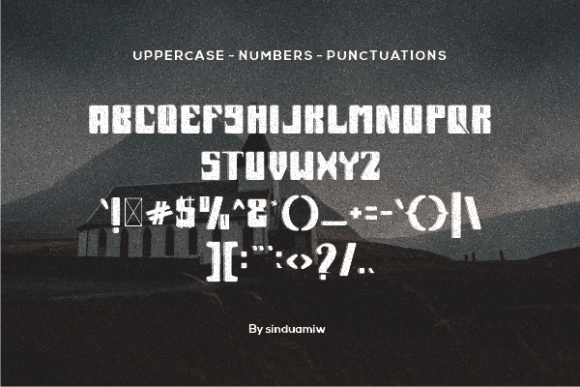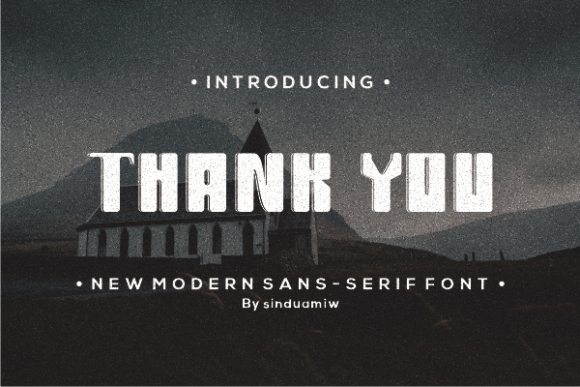
Affah Font: The Bold and Powerful Sans-Serif for Your Designs
Are you looking for a font that makes a statement? A font that screams confidence and power? Look no further than Affah Font, a bold and powerful sans-serif font that’s perfect for loud designs, posters, quote designs, and more. In this article, we’ll dive into the world of Affah Font, exploring its features, uses, and benefits for designers and crafters.
What is Affah Font?
Affah Font is a modern sans-serif font designed to make an impact. Its bold and sturdy structure makes it perfect for headlines, titles, and quotes that demand attention. With its clean and minimalist aesthetic, Affah Font is versatile enough to be used in a wide range of design projects, from posters and flyers to social media graphics and website headers.
Key Features of Affah Font
- Bold and Powerful: Affah Font is designed to make a statement. Its bold weight and sturdy structure make it perfect for loud designs that demand attention.
- Sans-Serif: Affah Font features a clean and minimalist sans-serif design, making it perfect for modern and edgy designs.
- Highly Legible: Despite its bold weight, Affah Font is highly legible, even at smaller sizes.
- Versatile: Affah Font can be used in a wide range of design projects, from posters and flyers to social media graphics and website headers.
Uses of Affah Font
Affah Font is perfect for designers and crafters who want to add a touch of boldness and power to their designs. Here are some popular uses of Affah Font:
- Posters: Affah Font is perfect for creating eye-catching posters that demand attention.
- Quote Designs: Use Affah Font to create stunning quote designs that inspire and motivate.
- Loud Designs: Affah Font is designed for loud designs that make a statement.
- Social Media Graphics: Use Affah Font to create bold and eye-catching social media graphics that stand out in crowded feeds.
- Website Headers: Affah Font can be used to create bold and powerful website headers that make a lasting impression.
Benefits of Using Affah Font
So why choose Affah Font for your designs? Here are some benefits of using Affah Font:
- Unique and Memorable: Affah Font is a unique and memorable font that will make your designs stand out.
- Easy to Read: Despite its bold weight, Affah Font is highly legible, making it easy to read even at smaller sizes.
- Versatile: Affah Font can be used in a wide range of design projects, making it a great addition to any designer’s toolkit.
- Time-Saving: With Affah Font, you can create stunning designs in no time, saving you time and effort.
Tips for Using Affah Font
Here are some tips for using Affah Font in your designs:
- Use it Boldly: Affah Font is designed to make a statement, so use it boldly and don’t be afraid to experiment.
- Pair it with Other Fonts: Affah Font pairs well with other fonts, so don’t be afraid to experiment with different combinations.
- Use it for Headlines: Affah Font is perfect for headlines and titles, so use it to create eye-catching headings.
In conclusion, Affah Font is a bold and powerful sans-serif font that’s perfect for designers and crafters who want to add a touch of boldness and power to their designs. With its clean and minimalist aesthetic, Affah Font is versatile enough to be used in a wide range of design projects, from posters and flyers to social media graphics and website headers. So why not give Affah Font a try and see how it can elevate your designs?